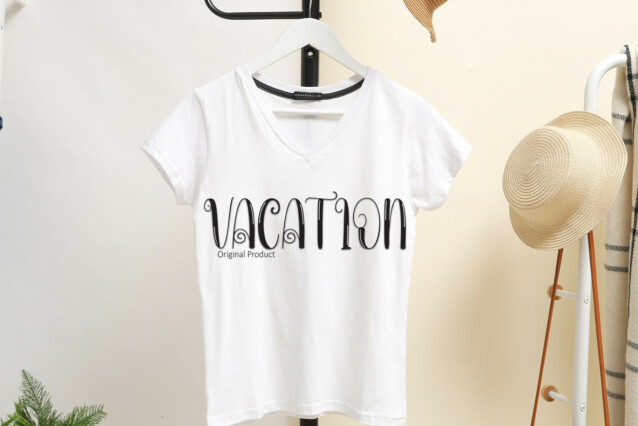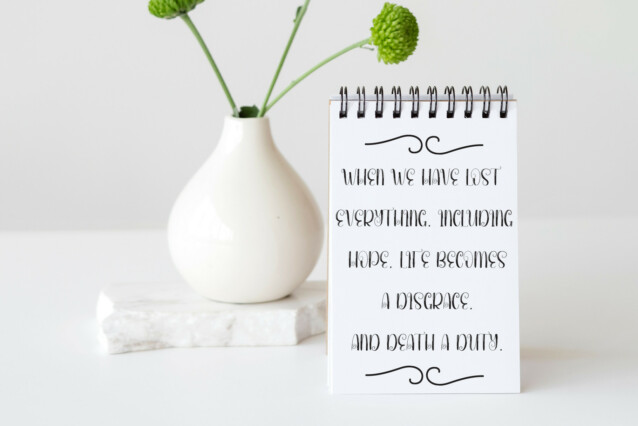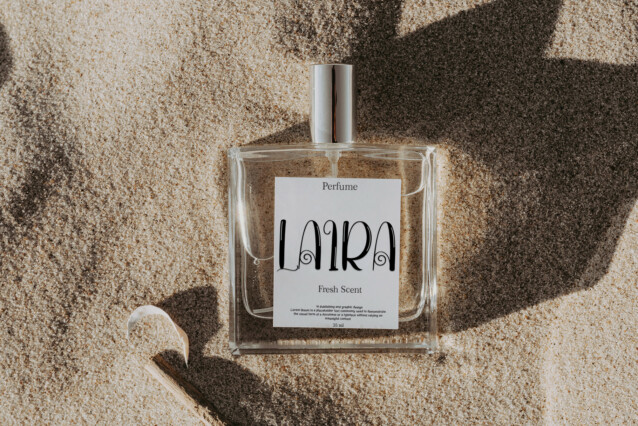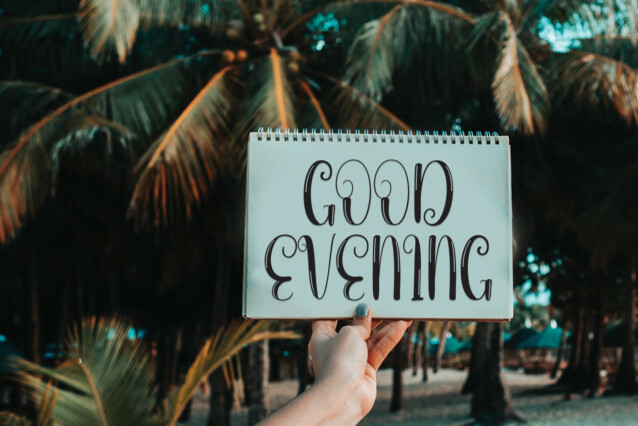
Painting Display Font
Painting Display Font is a sweet and friendly handwritten display font. Cute and fun, this font is ideal for writing wedding invitations, cards, or any other design that might need a playful touch!